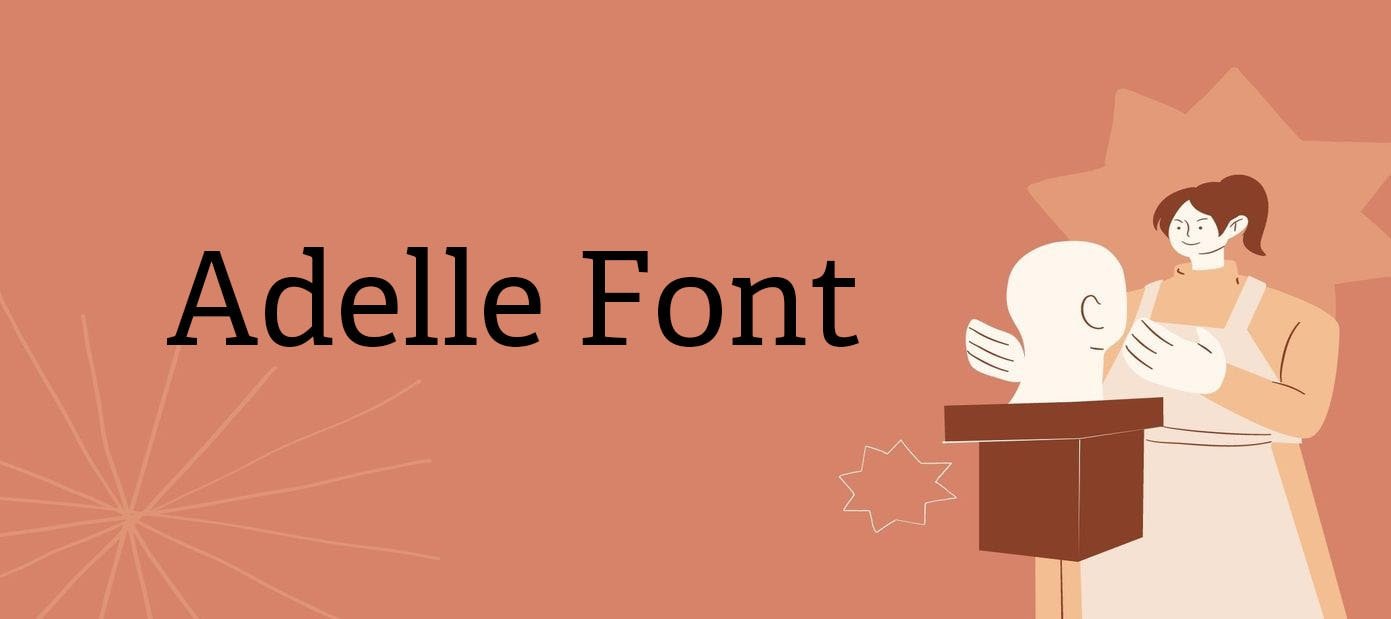
A slab serif typeface with 30 styles, available from. Fontstand allows trying adelle typeface for free or renting it for just a fraction of the regular price. You can also find it.
Download Adelle Font Free - This elegant font family comes with seven styles including thin, light, regular, semibold, bold,. Web download adelle font. A great choice for highlighting your design elements. A slab serif typeface with 30 styles, available from. Web explore adelle designed by josé scaglione, veronika burian at adobe fonts.
Download Adelle Font Free - Web download adelle font. A great choice for highlighting your design elements. Web explore adelle designed by josé scaglione, veronika burian at adobe fonts. A great choice for highlighting your design elements. You can also find it.
Download Adelle Font Free - Web explore adelle designed by josé scaglione, veronika burian at adobe fonts. A slab serif typeface with 30 styles, available from. Fontstand allows trying adelle typeface for free or renting it for just a fraction of the regular price. A great choice for highlighting your design elements. This elegant font family comes with seven styles including thin, light, regular, semibold,.
Download Adelle Font Free - Fontstand allows trying adelle typeface for free or renting it for just a fraction of the regular price. A great choice for highlighting your design elements. This elegant font family comes with seven styles including thin, light, regular, semibold, bold,. You can also find it. A slab serif typeface with 30 styles, available from.
Download Adelle Font Free - A slab serif typeface with 30 styles, available from. Fontstand allows trying adelle typeface for free or renting it for just a fraction of the regular price. Moreover, you can embed it to. A great choice for highlighting your design elements. You can also find it.
Download Adelle Font Free - A great choice for highlighting your design elements. Web adelle regular font free download. A slab serif typeface with 30 styles, available from. Web adelle semibold font free download. Web explore adelle designed by josé scaglione, veronika burian at adobe fonts.
Download Adelle Font Free - Moreover, you can embed it to. Buy the typeface directly from typetogether along with its complement, adelle sans, and start creating wonderful pieces. A slab serif typeface with 30 styles, available from. Web adelle regular font free download. A great choice for highlighting your design elements.
Download Adelle Font Free - Web download adelle font. This elegant font family comes with seven styles including thin, light, regular, semibold, bold,. A slab serif typeface with 30 styles, available from. Web adelle semibold font free download. Web adelle regular font free download.